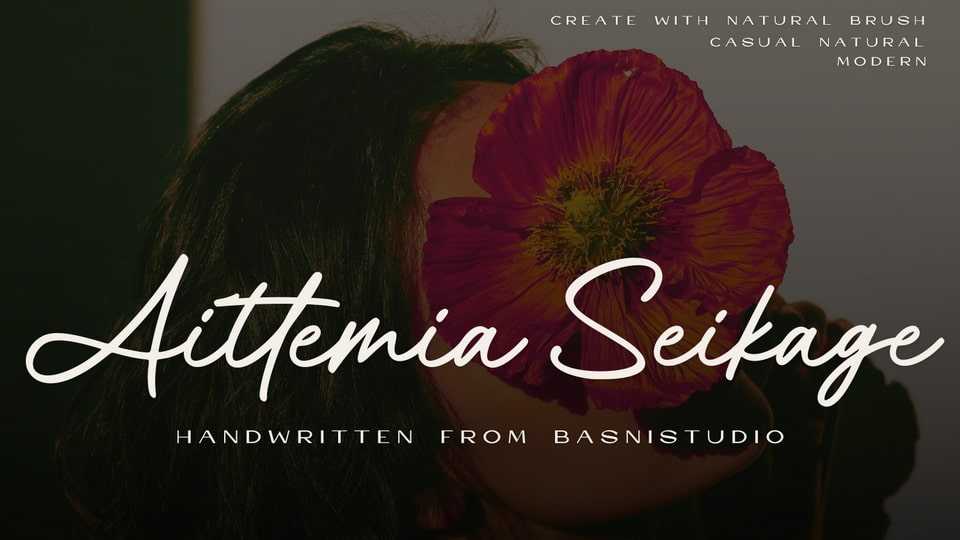
Download Aittemia Seikage font, a handwritten typeface that adds a elegant, versatile touch to everything from branding and social media to invitations and packaging.